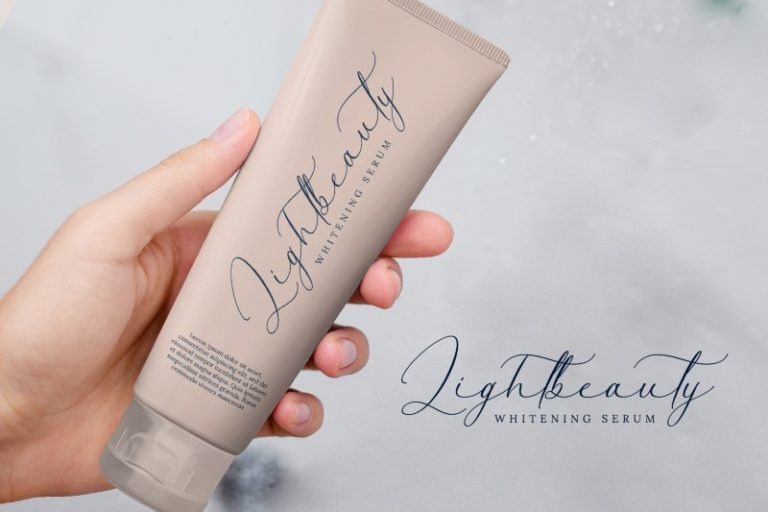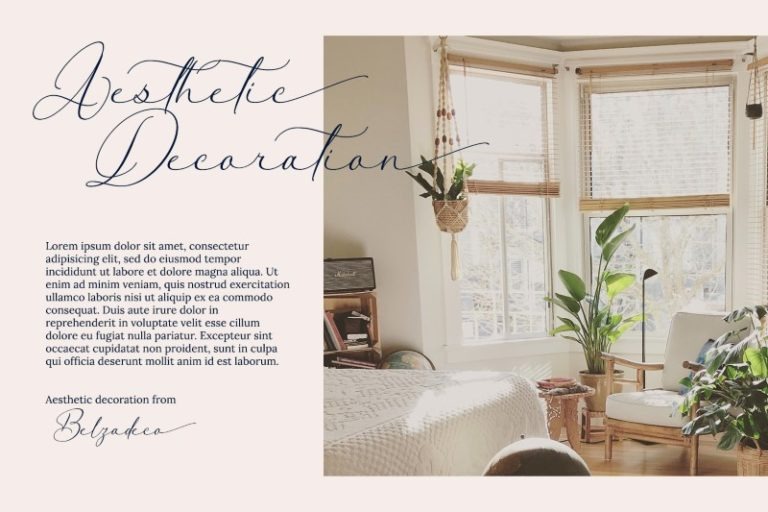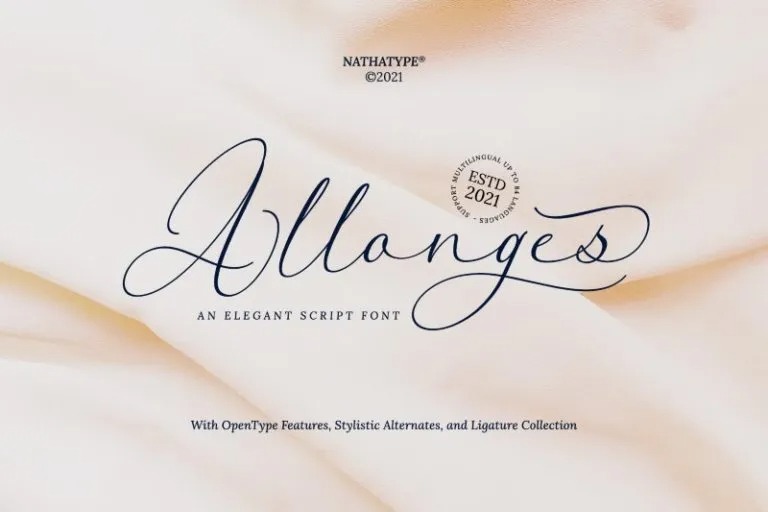
Allonges Calligraphy Font
This beautiful script font is for those who are needing of elegance and stylish for their designs and particularly well suited for wedding invitations, save the date cards and feminine branding. This font includes 11 lovely stylistic set also full set of uppercase and lowercase letters, multilingual symbols, numerals and punctuation and ligatures.